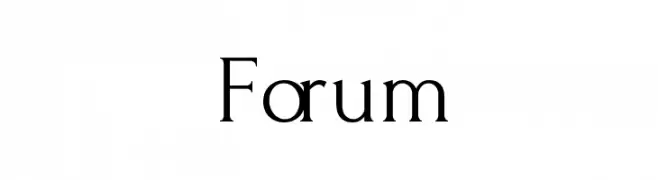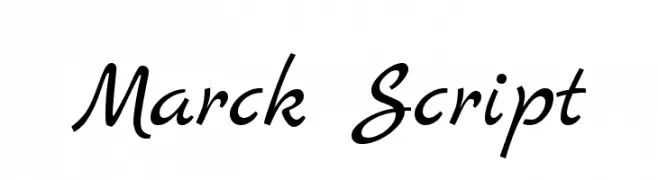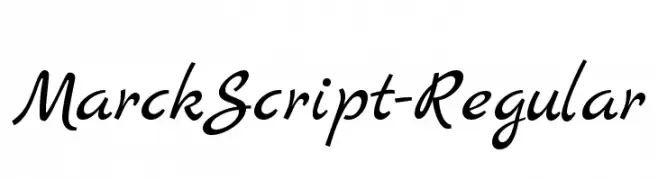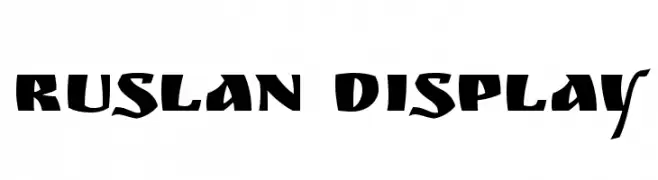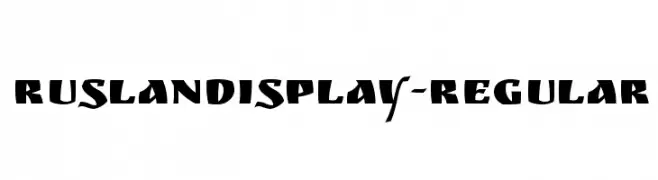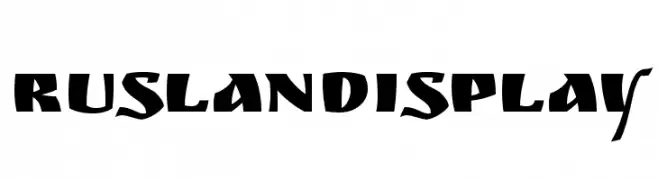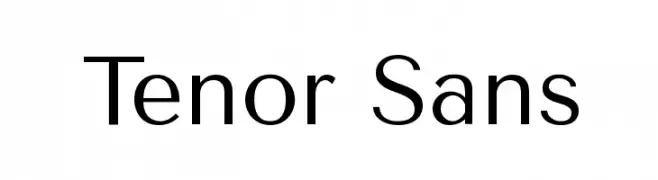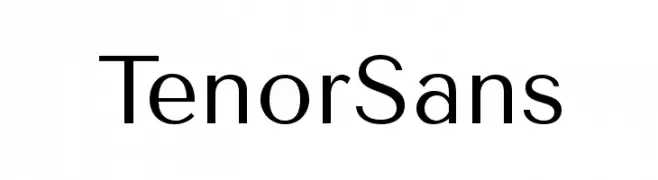
& Marck Fogel ) A casual and friendly script font with smooth, flowing letterforms.
& Marck Fogel ) A flowing, cursive script font with elegant, connected characters.
) A bold, angular font with a dynamic and geometric style.
) A bold, angular font with a dynamic and artistic style.
) A modern, clean sans-serif font with balanced spacing and consistent stroke width.
) A modern sans-serif font with clean, balanced letterforms and consistent stroke width.
) A classic serif font with elegant strokes and moderate contrast, ideal for readability.
A playful, handwritten font with a continuous, cursive-like style.
A playful, handwritten font with fluid, interconnected strokes.